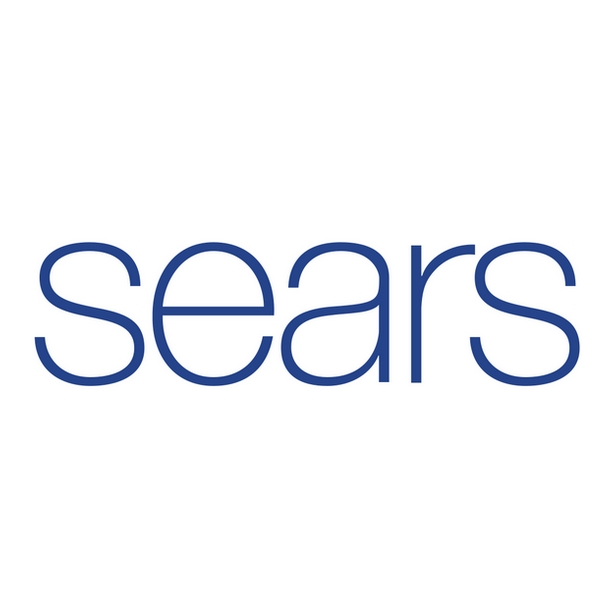
Sears Font
ElectronicsSears was a department store chain in the United States that sold a variety of products including clothing, appliances, and electronics. It was owned by Sears Holdings Corporation until it filed for bankruptcy in 2018.
The font used for the Sears logo resembles Helvetica 35 Thin with minor adjustments made to the letter "a". The previous version of the logo also utilized Helvetica but incorporated a font called Dilema, created by Harold Lohner, to imitate the inline lettering.